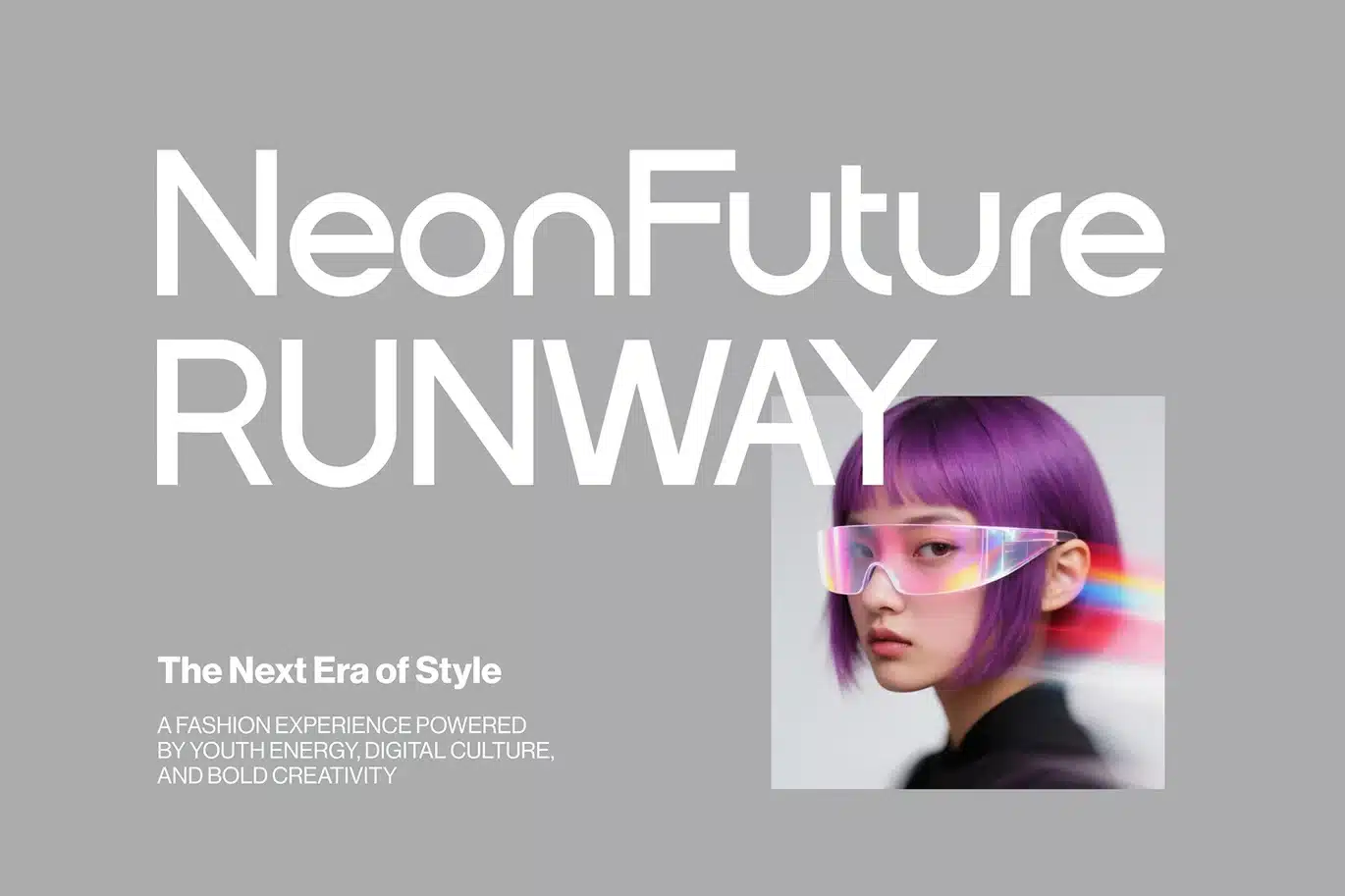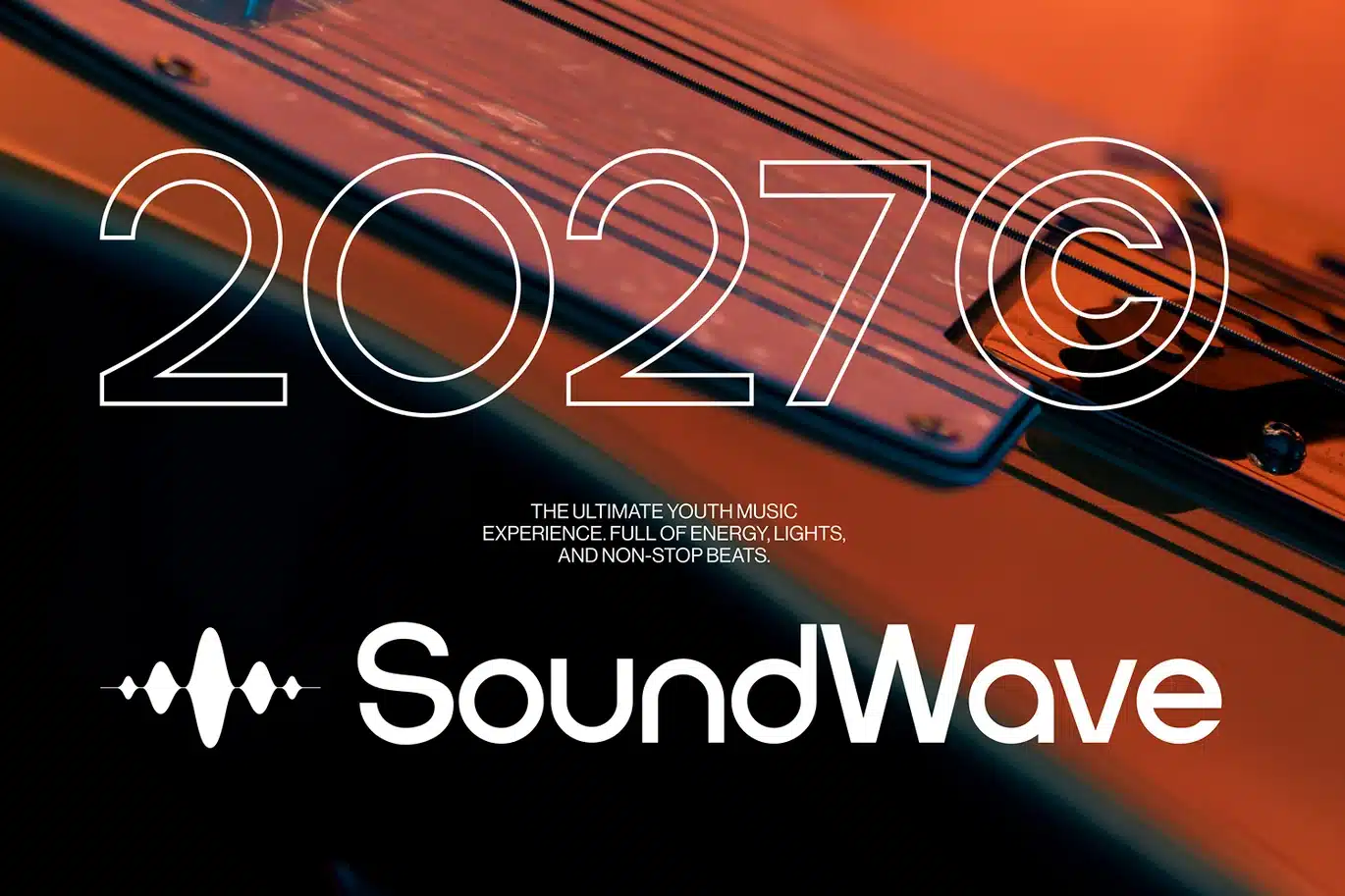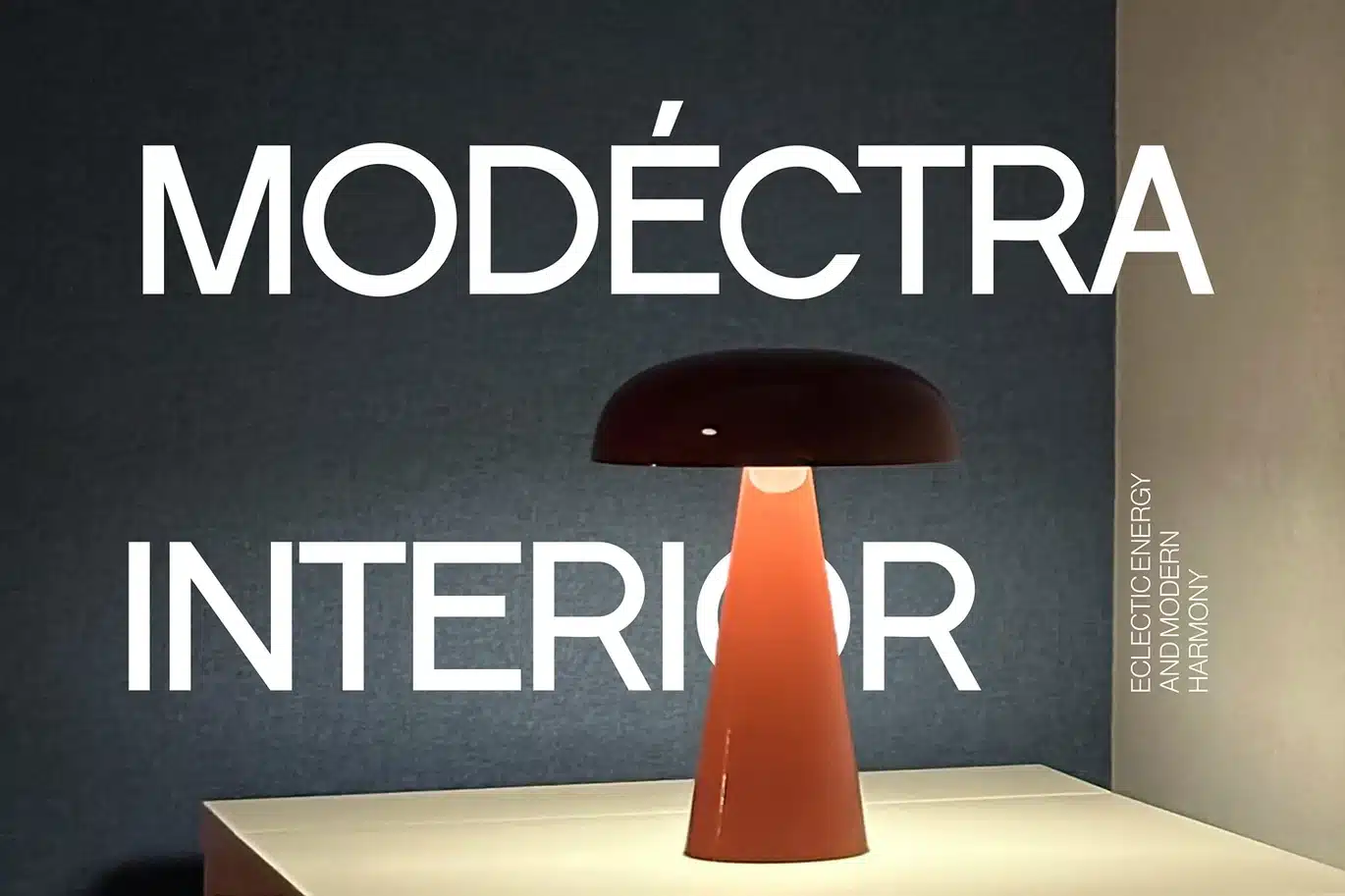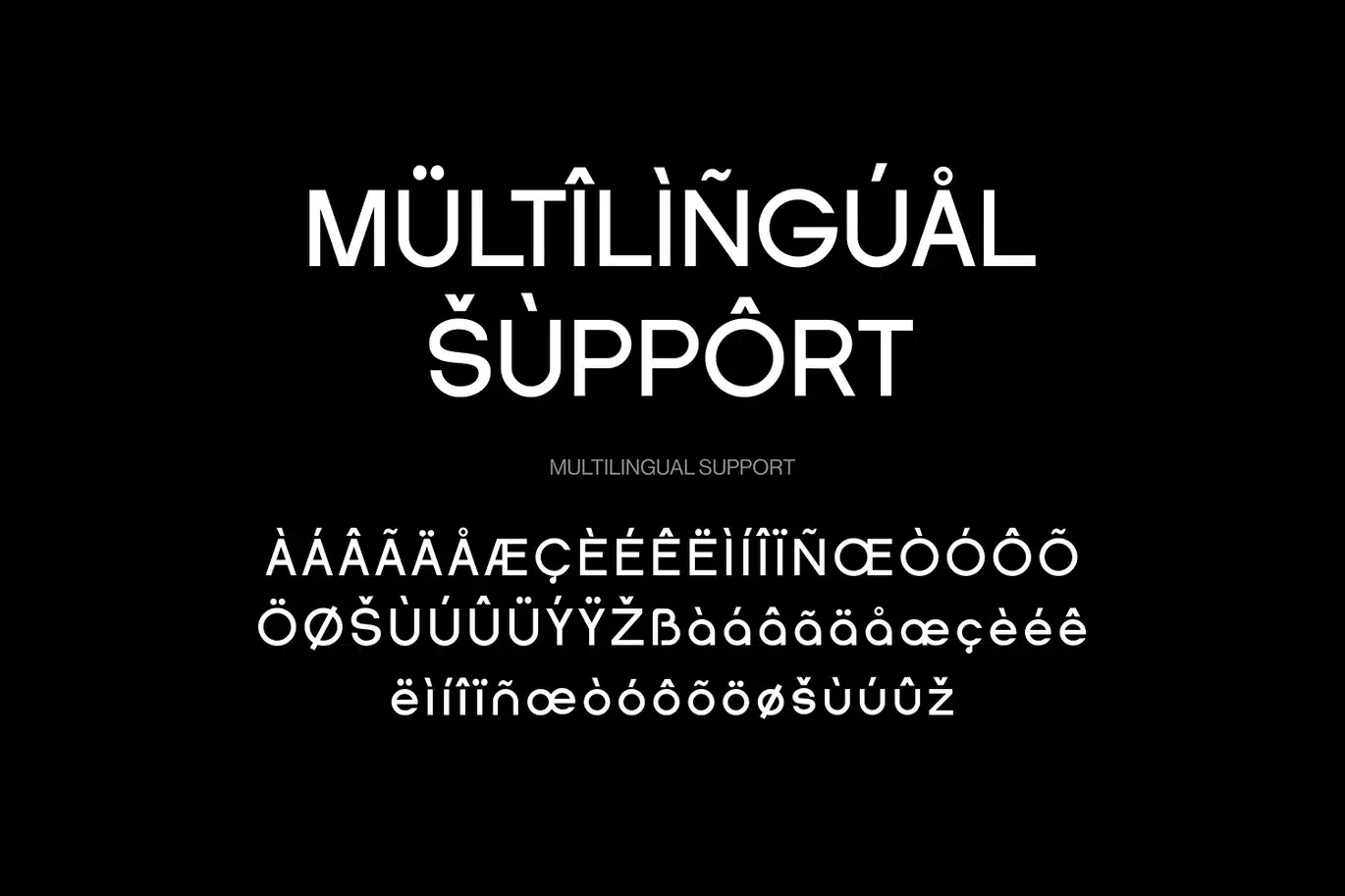
Modpot – Logo Font
Modpot font is a modern and clean sans serif typeface designed to bring clarity and elegance into every logo and visual identity. Inspired by the timeless style of helvetica and futura, this font features smooth curves and balanced proportions that make it highly versatile for both display and professional use. Its minimal structure gives a refined and elegant impression, making it suitable for fashion brands, corporate projects, and contemporary design needs.
With its friendly and approachable form, Modpot font also works well for kids-themed designs while maintaining a polished and modern aesthetic. Whether used across branding systems, logos, or creative fonts collections, it blends seamlessly with styles similar to montserrat while keeping its own unique character. This font delivers a perfect balance between minimal, clean design and functional readability across various applications.